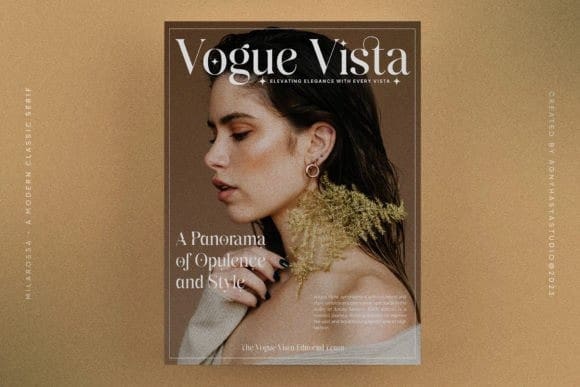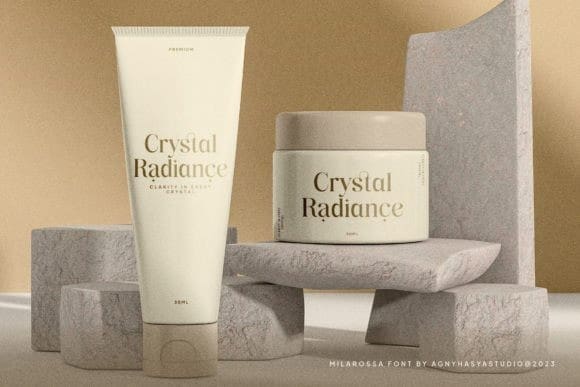
Milarossa Font
Milarossa Font Is a Serif Display Typeface That Is Elegant, Classic Yet Modern. It Comes in 2 (Two) Styles (Regular & Italic) and Is Created With Stylistic Alternates and Ligatures. Combine It and Make Your Perfect Typography Design!